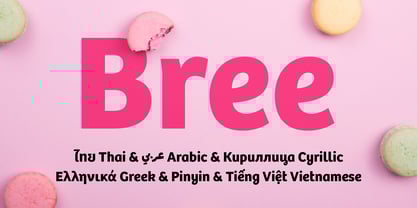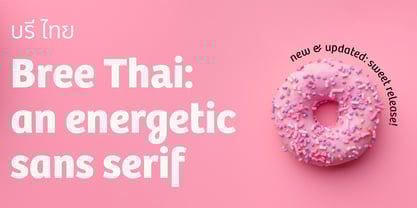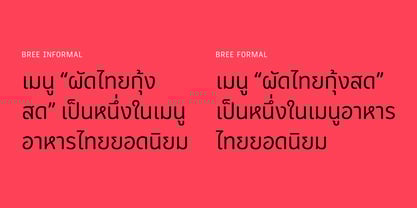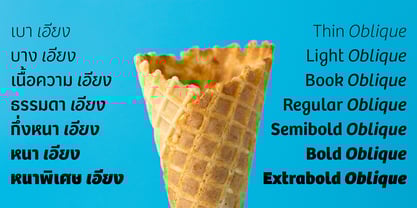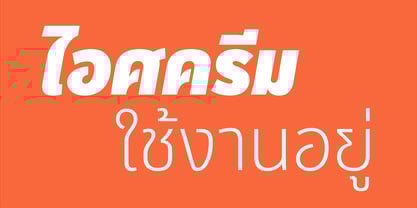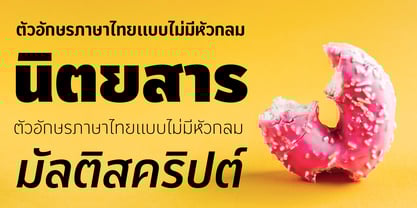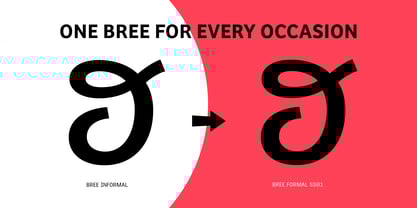
Bree Thai
par TypeTogether
La famille de polices Bree Thai a été conçue par Veronika Burian, José Scaglione et publiée par TypeTogether. Bree Thai contient 14 styles et options de package familial.
A confident and spry Thai family based on handwriting rhythm and expressiveness.
The Bree Thai font family is Panuwat Usakulwattana’s rhythmic companion to the original Bree design by Veronika Burian and José Scaglione. The Thai script delivers a spirited look and feel for branding and headline usage, while retaining a welcoming tone in paragraph text.
Since Bree Latin is clearly influenced by handwriting, its closest Thai counterpart is the modern loopless style. Not only does this help Bree Thai complement the other established scripts, it gives text a lively and approachable appearance in paragraphs with fluid shapes and measured flourishes. Bree Thai combines self-assuredness with joviality, and glyph alternates are available when a slight change in tone is desired. All this adds up to a big personality, so even when set in small text there is no skimming past the words Bree voices.
In 2019, the Bree font family got a huge update. A few shapes were updated or added (the ‘k’ and German capital ‘ß’), two entirely new weights were added (Book and Book Italic), and spacing was perfected. More than that, Vietnamese support was added to Bree Latin, and the Bree Greek and Bree Cyrillic scripts were designed from scratch to parallel the Latin’s tone. Arabic and Thai scripts were added in 2021, along with Pinyin and refined Vietnamese diacritics being added to the Latin, and Devanagari is currently under development. Additionally, Bree was designed in the variable font format for those who want complete control over the font’s appearance while simultaneously saving digital weight in the form of megabytes. This puts Bree in the perfect position for the next digital revolution.
The complete seven weight Bree Thai font family, along with our entire catalogue, has been optimised for today’s varied screen uses. Bree has been chosen for such wide-ranging uses as the branding for the country of Peru, Breast Cancer Awareness Month in the US, organic food brands, and numerous layouts including mobile apps, newspapers, online magazines, and books. Be sure to check out the other scripts in the full multiscript Bree family: Arabic, Latin (including Pinyin and Vietnamese), Cyrillic, and Greek